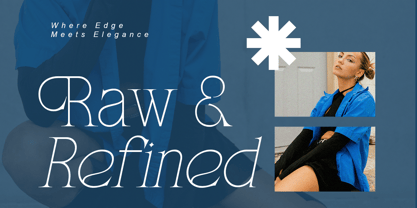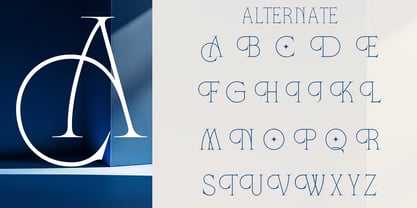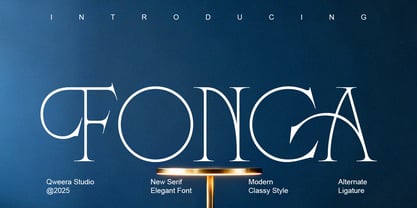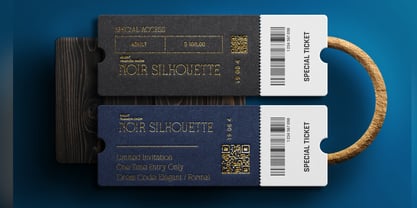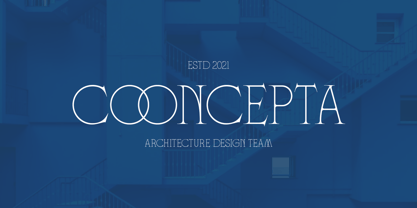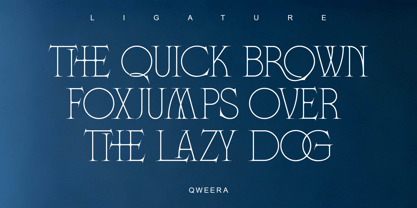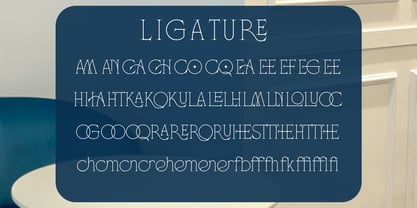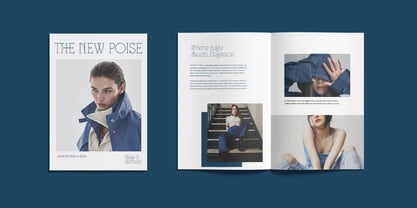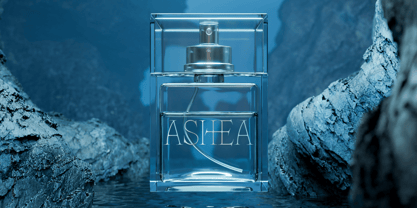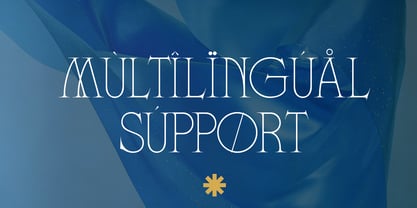
Fonca
by Qweera Studio
The Fonca Font Family was designed by Idhham Cholid Rikzano Yahya and published by Qweera Studio. Fonca contains 2 styles and family package options. More about this family
Fonca is a modern elegant serif typeface featuring clean structure and refined contrast. Designed for branding and editorial typography, it delivers minimal yet sophisticated serif styling. With alternates, ligatures, and multilingual support, Fonca offers flexibility for both digital and print applications. Ideal for designers seeking clean luxury serif typography. Features Alternates Ligatures Multilingual support Professional kerning Regular & Italic Specifications Language Support: Western, Central Europe Features: Alternates, Ligatures Recommended For Luxury branding, editorial typography, packaging design, fashion identity, minimalist logo design
Designers: Idhham Cholid Rikzano Yahya
Foundry: Qweera Studio